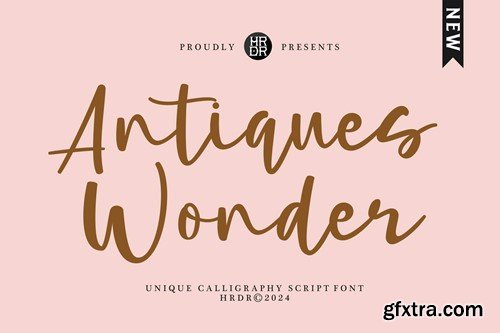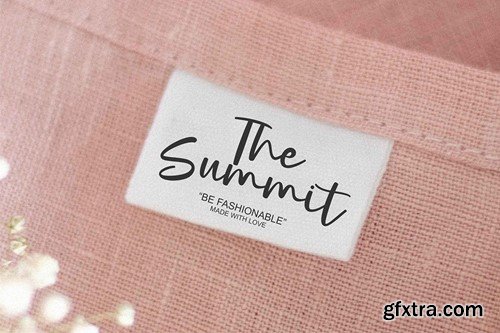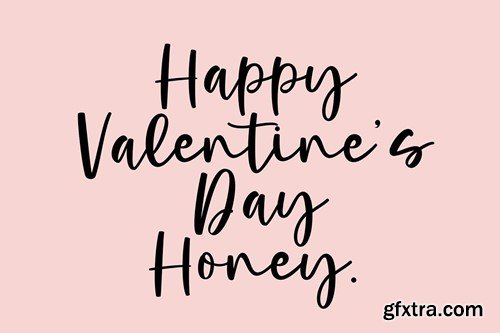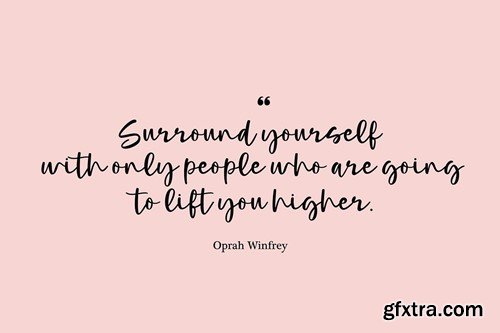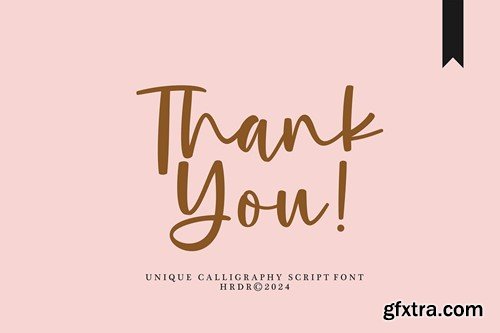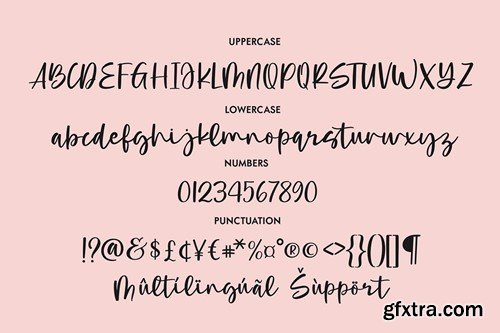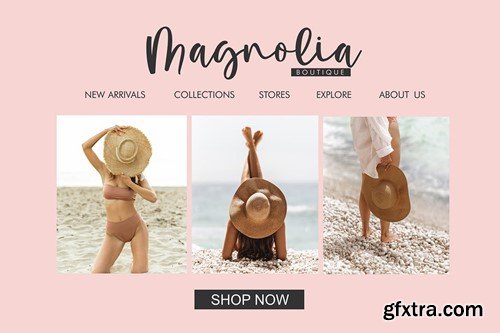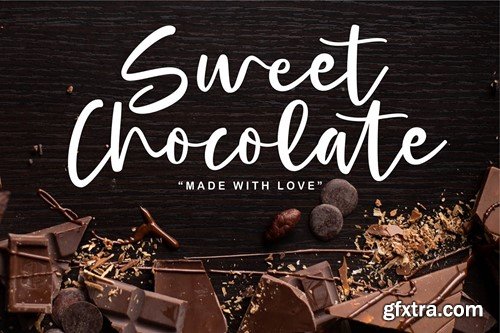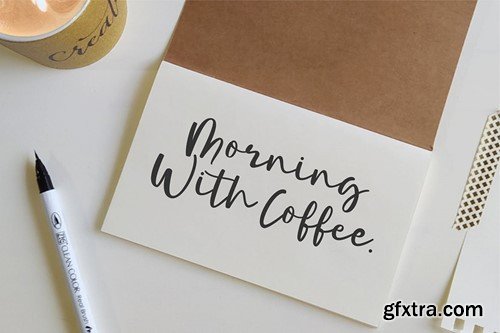
古董奇迹 - 独特书法字体P5H4RJD
Antiques Wonder - Unique Calligraphy Font P5H4RJD
Antiques Wonder - Unique Calligraphy Font
Introducing Antiques Wonder, a captivating modern calligraphy font designed to elevate your creative expressions, especially perfect for Valentine's Day cards and romantic projects. With an extensive character set of glyphs, this font is a versatile toolkit for crafting heartfelt messages and enchanting designs.
Font Features :
• Uppercase
• Lowercase
• numeric & Multilingual support
• Ligatures: Enhance the fluidity of your writing with ligatures that create seamless connections between letters, ensuring a smooth and graceful appearance.
• PUA Encoded: Unlock additional characters through Private Use Area encoding, providing limitless creative possibilities.
Crafted with love and precision, Antiques Wonder is the perfect companion for designing romantic Valentine's Day cards, love notes, and expressions of affection.